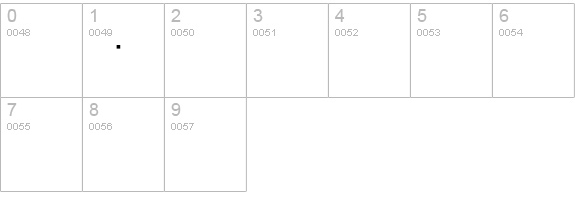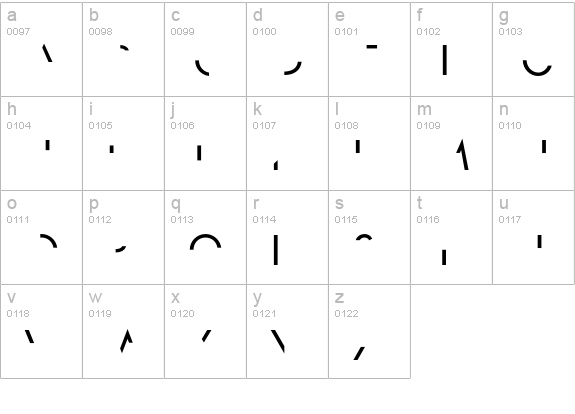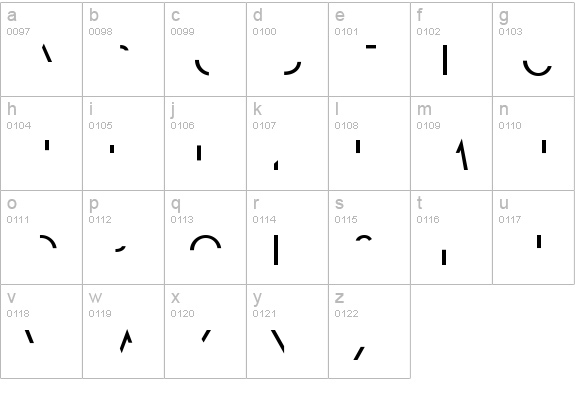
DearJohn-Italic Font Details
DearJohn-Italic is a distinctive, italic variant in the DearJohn typeface family \xE2\x80\x94 well suited to design and typography projects.
DearJohn-Italic is a stylish and elegant font that exudes sophistication and charm. Its slanted design adds a touch of flair to any project, making it perfect for creative endeavors that require a touch of class. The italicized letters flow smoothly and effortlessly, creating a visually appealing look that is sure to catch the eye. Best of all, DearJohn-Italic is available for free download at FontsMarket.com. This means you can add this beautiful font to your collection without any cost, making it a fantastic option for designers, artists, and anyone looking to enhance their projects with a touch of elegance. Don't miss out on the opportunity to elevate your work with DearJohn-Italic - download it today and see the difference it can make!